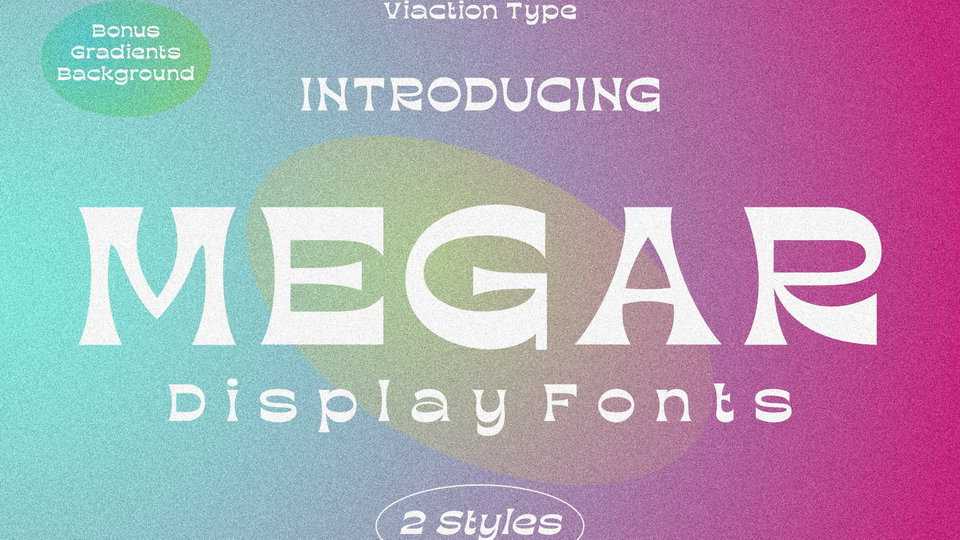
Download Megar font, a bold display typeface with a retro feel. Megar is suitable to complement your work with a retro or pop art theme.
Designer: Viaction Type Co